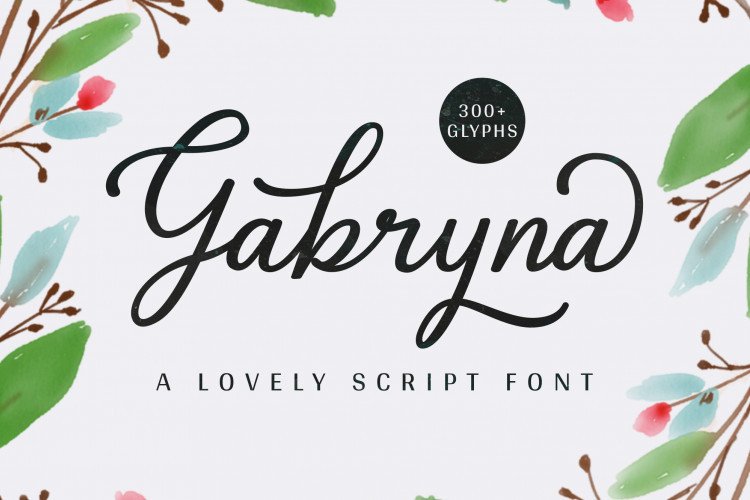
Gabryna Script Font
Gabryna Script Demo Font
Hello everyone! Introducing Gabryna Font. Inspired by signature and stylish handwriting, perfect for many different project. It is design and shared by Sibelumpagi Studio. Gabryna Script Font is a calligraphy font with some alternates characters that make a lovely design look. It comes with 324 glyphs included standard characters, multilingual support, ligatures, and alternates that can be used to make your design more beautiful.
Gabryna is very good for logos, product packaging, wedding invitations, branding, headlines, signage, labels, signatures, book covers, posters, quotes and much more.